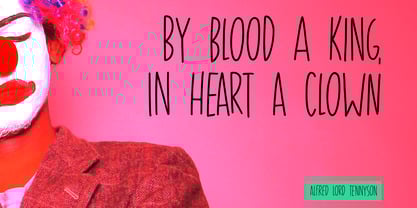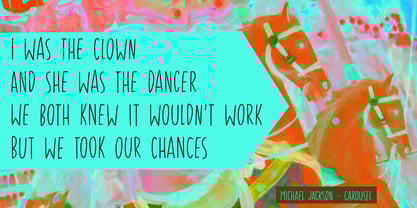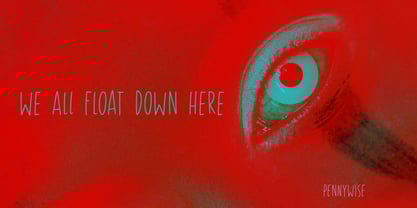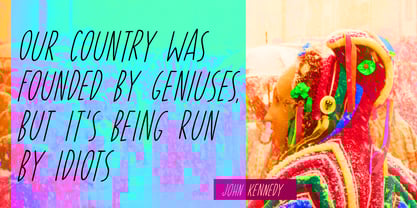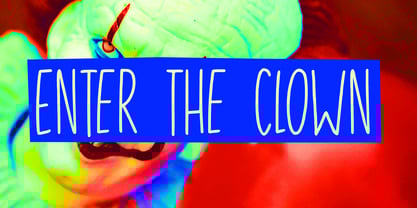
Enter The Clown
by Kitchen Table Type Foundry
The Enter The Clown Font Family was designed by David Kerkhoff and published by Kitchen Table Type Foundry. Enter The Clown contains 2 styles and family package options.
I have had a lifelong dislike of circuses and clowns - especially the latter. I think they’re all evil and creepy!
There are a lot of clowns around these days, so it wasn’t hard to find a name for this font!
Enter The Clown is a handmade, all caps display font. It is tall and thin, comes with a set of alternates and full language support. I’m not fooling you!